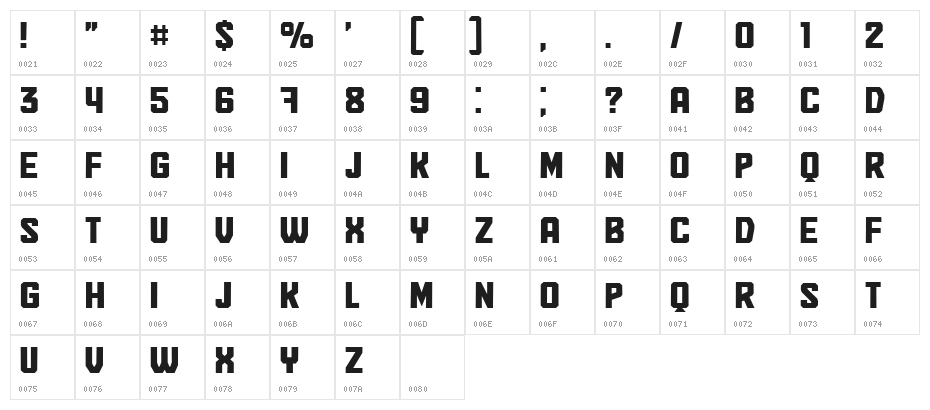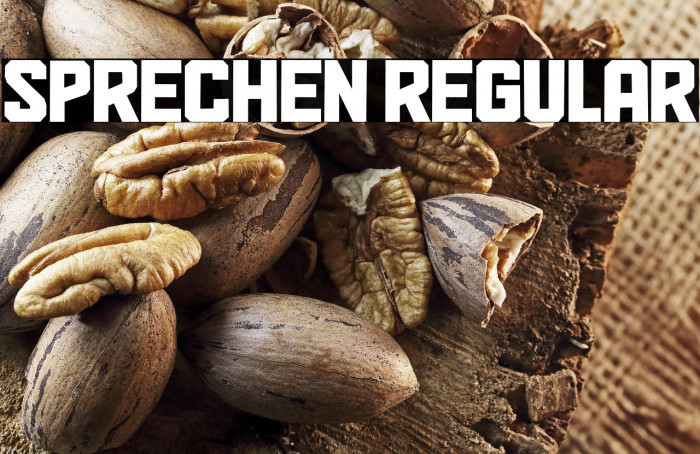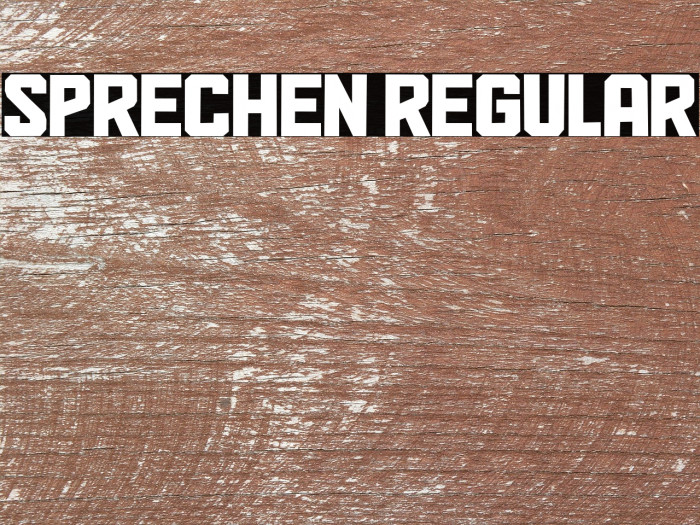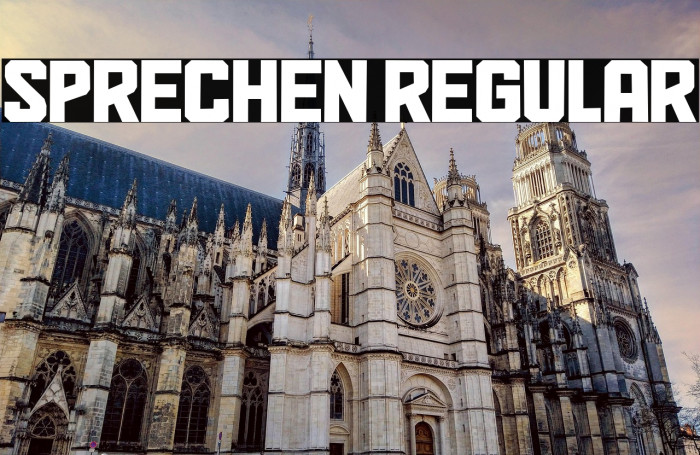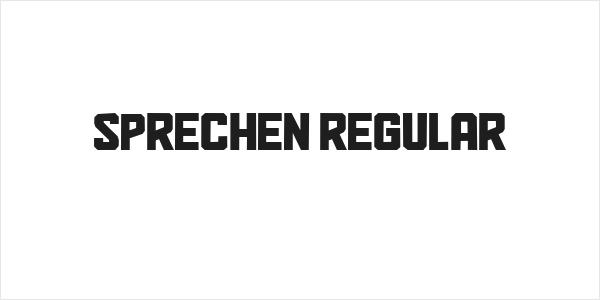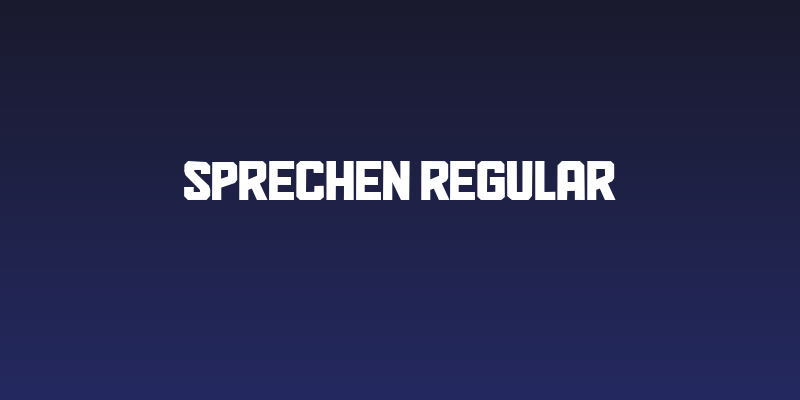
Sprechen Regular Font
Sprechen Regular Description
This font features bold, geometric letterforms with a distinct, angular style. The characters are crafted with sharp edges and a uniform thickness, giving them a strong and impactful presence. The uppercase letters are particularly striking, with a blocky appearance that commands attention. The numbers and special characters maintain this bold aesthetic, ensuring consistency across all glyphs. The font's design is modern and assertive, making it suitable for projects that require a strong visual statement.
| Proposed Projects | Ideal for posters, headlines, branding, and any design that needs a bold, modern touch. |